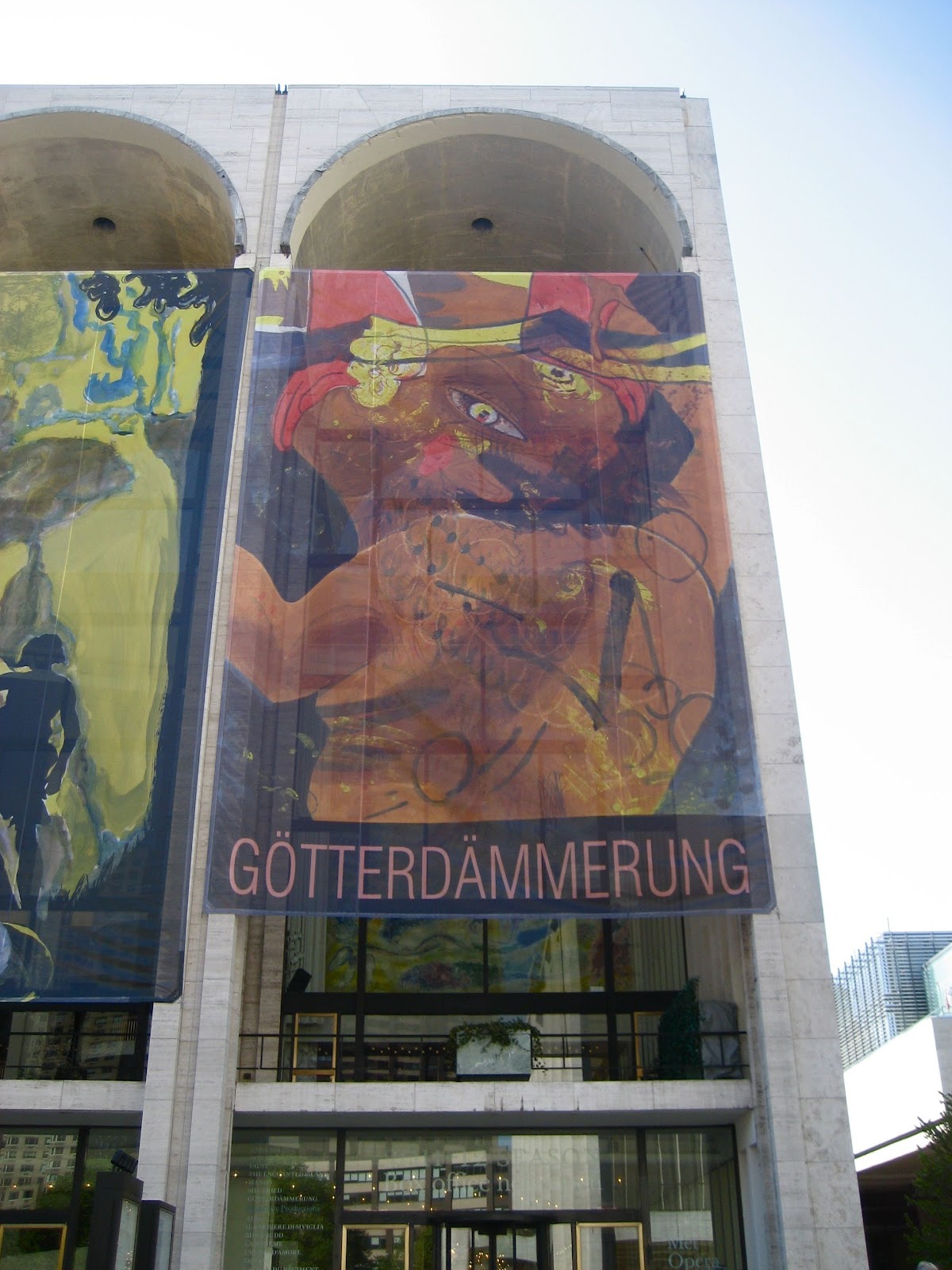
Each card measures 8.5 inches / 21.6 centimeters square.
Each card measures 7 by 11 inches / 17.8 by 28 centimeters.
Lettering: Ault & Wiborg Inks
American Bookmaker, September 1892
American Bookmaker, November 1892
The Inland Printer, August 1897
Printer & Bookmaker, May 1898
Printer & Bookmaker, June 1898
Printer & Bookmaker, July 1898
Printer & Bookmaker, August 1898
Printer & Bookmaker, September 1898
The Inland Printer, October 1898
The Inland Printer, November 1898
Printer & Bookmaker, December 1898
The Inland Printer, January 1899
The Inland Printer, February 1899
The Inland Printer, March 1899
The Inland Printer, April 1899
The Inland Printer, May 1899
The Inland Printer, June 1899
The Inland Printer, July 1899
The Inland Printer, August 1899
Street Scene: The Metropolitan Opera's Ring Cycle
• N E W Y O R K C I T Y •
Lincoln Center, Manhattan
April 29, 2012
When the logo was returned to me, I noticed a pinkish stain on the acetate overlay. Someone in the DC production staff had made a film positive of “of the Nibelung” and on it wrote in marker: “The Ring” by Richard Wagner + Alex Jay. The film positive was under the acetate and the marker ink had transferred to the acetate.
Below are the covers of the four books. Later, the stories were reprinted in a single volume.